Curated Collection of Free Vintage Fonts for Designers
Looking to add a timeless and nostalgic touch to your design projects? Our curated collection of free vintage fonts offers a handpicked selection of stunning retro typefaces that bring classic charm and unique personality to any creative work. These vintage fonts are perfect for designers who want to infuse elegance, history, and character into logos, posters, labels, packaging, and more.
Why Choose Vintage Fonts
Vintage fonts remain a favorite among designers for good reason. Their classic, retro style adds a sense of authenticity and heritage to modern projects. Even though they are inspired by past eras, these typefaces still make a bold and visually appealing statement. Whether your goal is to create logo designs, eye-catching posters, nostalgic packaging, or branding that stands out, vintage fonts help your work convey timeless style and elegance.
Mixing vintage fonts with contemporary design elements can create a unique and compelling look, combining old-world charm with modern creativity. Handcrafted and ornamental letterforms in these fonts allow designers to experiment with layouts, headlines, and decorative elements while maintaining readability and sophistication.
Tips for Using Vintage Fonts
Pair retro scripts with clean serif or sans-serif fonts for contrast. Use bold styles for titles and headers, and lighter weights for body text to maintain hierarchy and clarity. These free vintage fonts are versatile enough to be used in both print and digital projects, ensuring your work maintains its classic appeal across all mediums.
1. Caja font
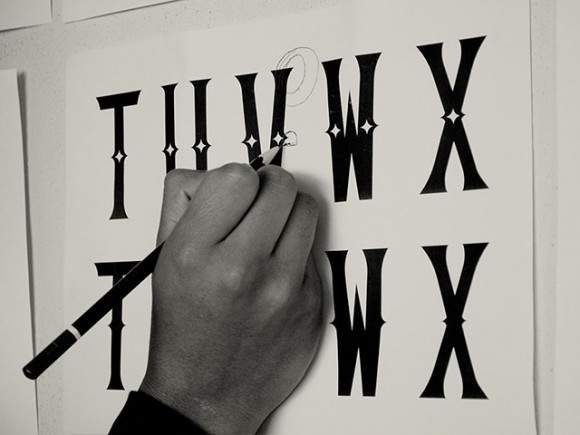
2. Cassannet Plus Regular
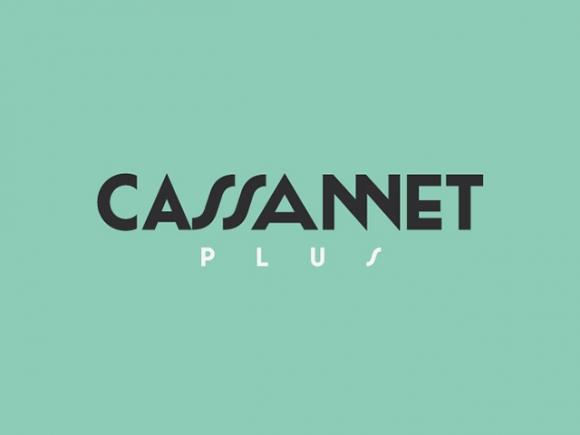
3. Bough Handdrawn Typeface
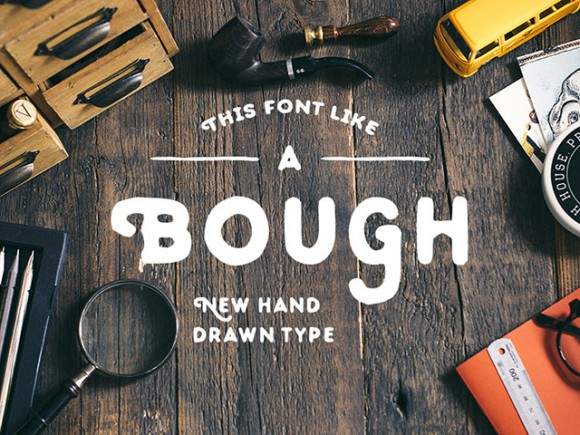
4. Bernier Type Family
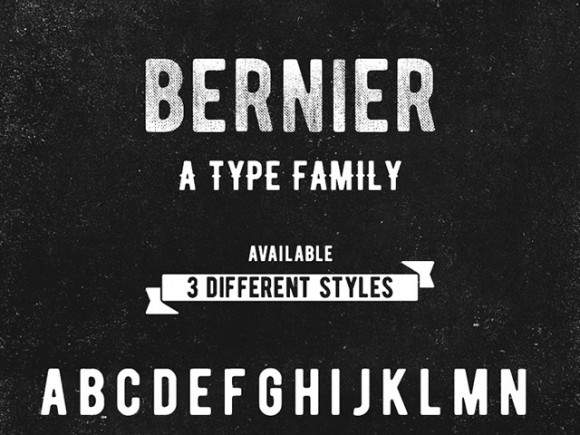
5. Nickainley Monoline Script Font
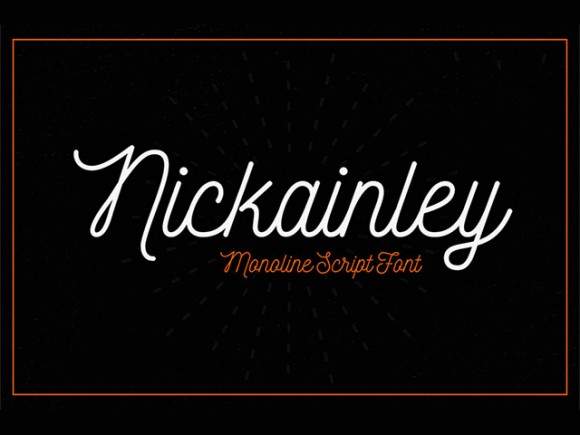
6. Duwhoers Modern Brush Font
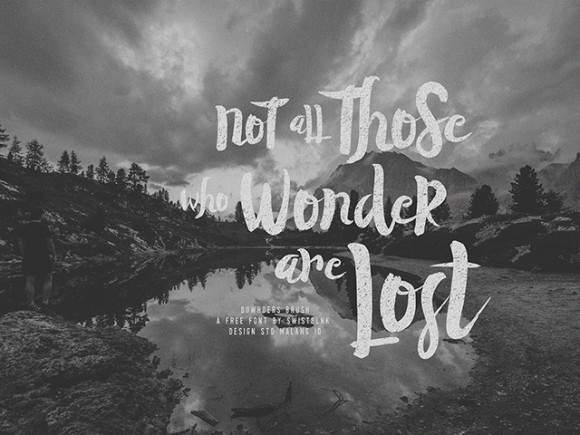
8. Refuge Handcrafted Font
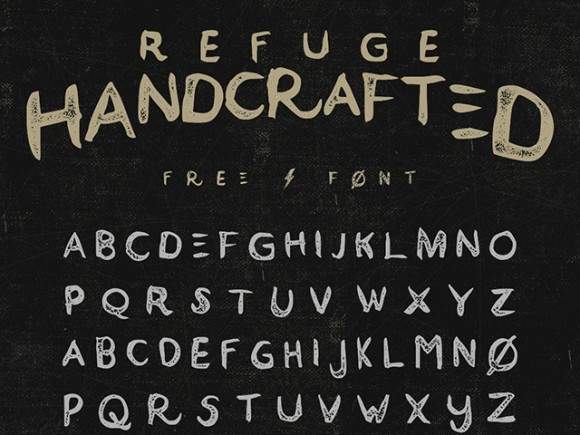
9. Blnc Round Font
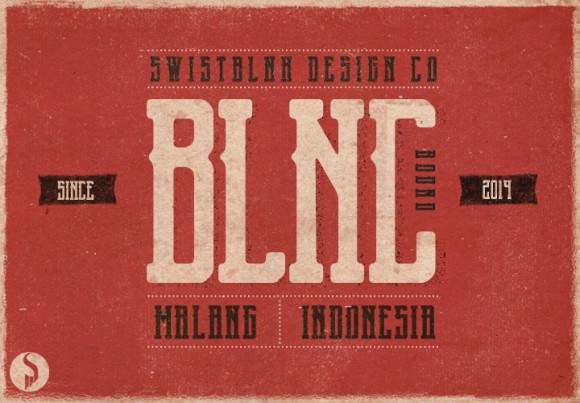
10. Draft Display Font
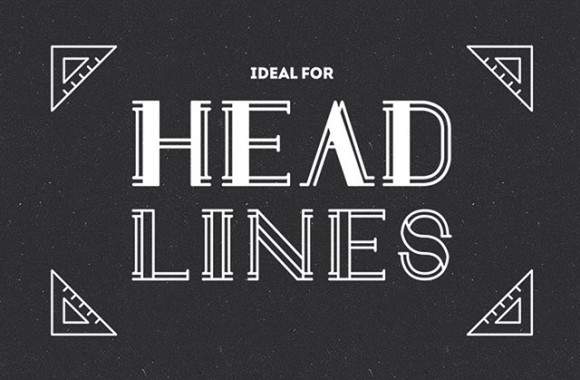
11. Kino 40 Typeface
12. Hobric Rough font
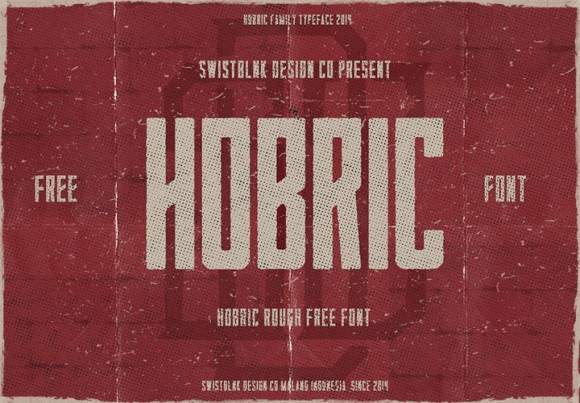
13. Contact High Font
14. Ren free font
15. Arkana Script Vintage Font
16. Canyons Vintage Script
17. Rising Star Monoline Script
18. Zeyk Brush Typeface Font
19. Lauren Script Font
20. Awesawez Script Font
21. Diamor Script Font
22. Little Cutie Font
23. Sitka Brush Font
24. Logawa Script Font
25. Elrotex Brush Font
26. Something Wild Free Font
27. Arabella font
28. Morracle Font
29. Breathe Font